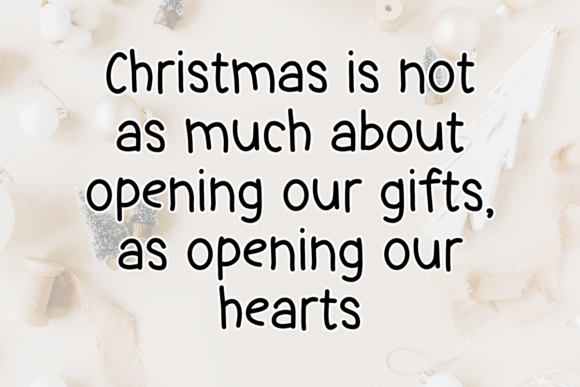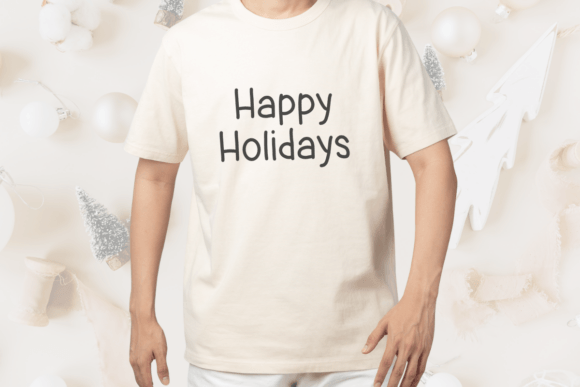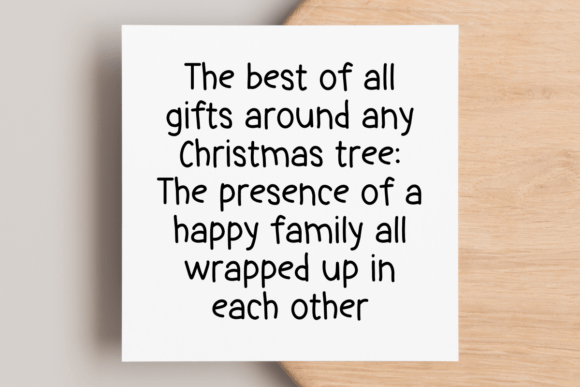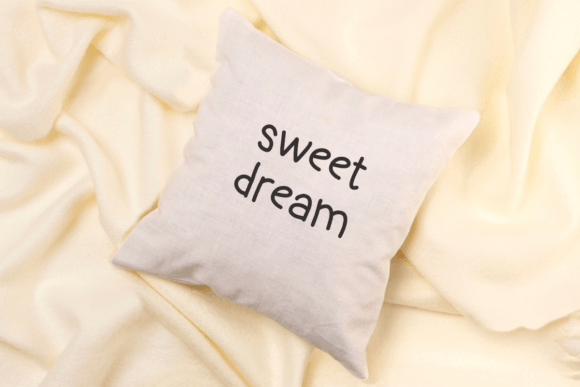
Discover the Magic of Christmas December Font: Elevate Your Creations This Holiday Season
The holiday season is upon us, and with it comes the joy of creating something special. Whether you’re a designer, crafter, educator, or writer, you know how important it is to make your projects stand out. That’s where Christmas December, a captivating sans serif font, comes in. This delightful, yet sophisticated font is perfectly suited for Kindle Direct Publishing and is sure to breathe life into your journals, notes, and other creative pursuits.
A Font that Spreads Holiday Cheer
Christmas December is not just a font, but a unique means to invigorate your creations during the joyous times of the year. Its impeccable design and festive charm make it the perfect addition to any project. Whether you’re looking to create whimsical scrapbook entries, meticulously crafted schedules, or warm greeting cards, this versatile font seamlessly elevates every written piece.
As a designer or crafter, you know how important it is to have the right tools to bring your ideas to life. Christmas December font is the perfect addition to your toolkit. Its clean and modern sans serif design makes it easy to read and perfect for a wide range of projects, from holiday cards and invitations to DIY craft tutorials and blog posts.
Make Learning Materials More Inviting
For educators, Christmas December font offers a unique opportunity to make learning materials more inviting to students. Imagine creating worksheets, activity sheets, and educational resources that are not only informative but also visually appealing. This font is sure to capture the attention of your students and make learning more fun and engaging.
Create Unforgettable Quotes and Social Media Posts
As a writer, you know how important it is to make your words stand out. Christmas December font is the perfect way to add a touch of holiday magic to your quotes, social media posts, and other written pieces. Its elegant design and festive charm make it perfect for creating unforgettable content that will resonate with your audience.
Endless Possibilities for Creative Pursuits
The possibilities for using Christmas December font are endless. Here are just a few ideas to get you started:
- Whimsical scrapbook entries and photo albums
- Meticulously crafted schedules and planners
- Warm greeting cards and invitations
- DIY craft tutorials and blog posts
- Educational resources and worksheets
- Social media posts and quotes
- Kindle Direct Publishing projects
Why Choose Christmas December Font?
So why choose Christmas December font for your holiday projects? Here are just a few reasons:
- Unique and festive design: Christmas December font has a unique and festive design that is sure to capture the spirit of the holiday season.
- Versatile and easy to use: This font is versatile and easy to use, making it perfect for a wide range of creative pursuits.
- Impeccable sans serif design: The clean and modern sans serif design of Christmas December font makes it easy to read and perfect for digital and print projects.
- Perfect for Kindle Direct Publishing: This font is perfectly suited for Kindle Direct Publishing, making it easy to create professional-looking ebooks and journals.
Ignite Your Creativity with Christmas December Font
Ignite your creativity with Christmas December font and watch your creations dazzle this holiday season. Whether you’re a designer, crafter, educator, or writer, this captivating sans serif font is sure to bring a touch of holiday magic to your projects. So why wait? Download Christmas December font today and start creating unforgettable holiday content.
In conclusion, Christmas December font is a unique and versatile font that is perfect for a wide range of creative pursuits. Its festive charm, impeccable design, and ease of use make it the perfect addition to any project. Whether you’re looking to create holiday cards, educational resources, or Kindle Direct Publishing projects, this font is sure to elevate your creations and make them stand out.